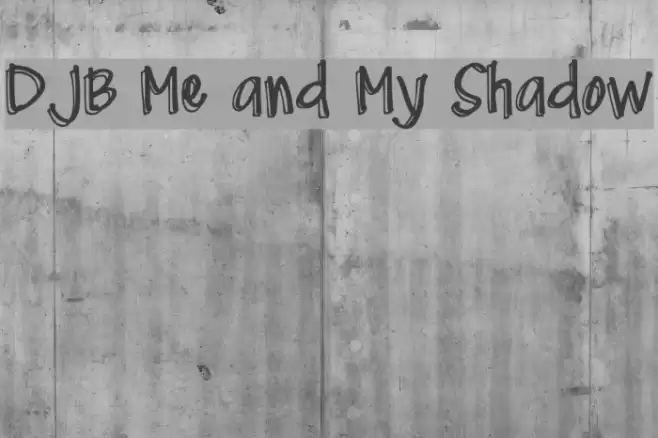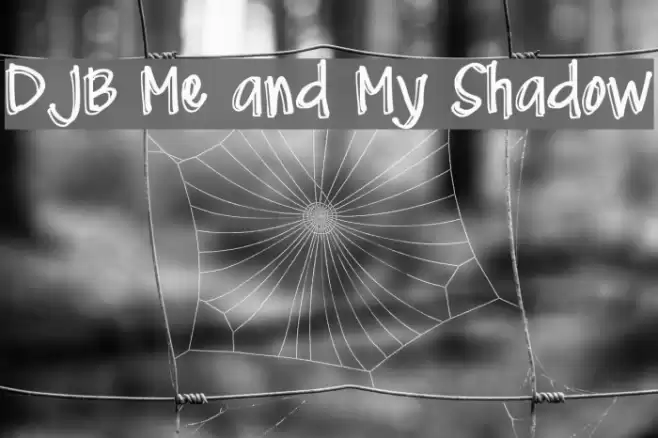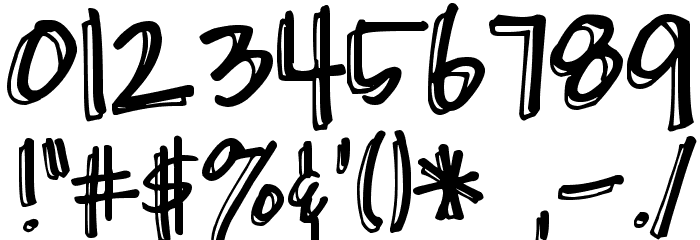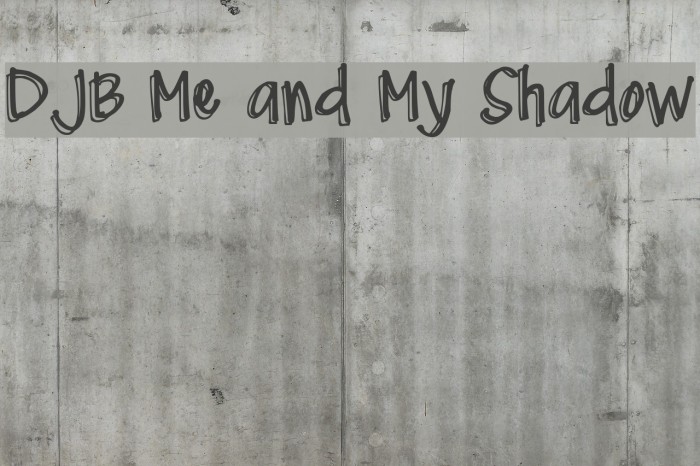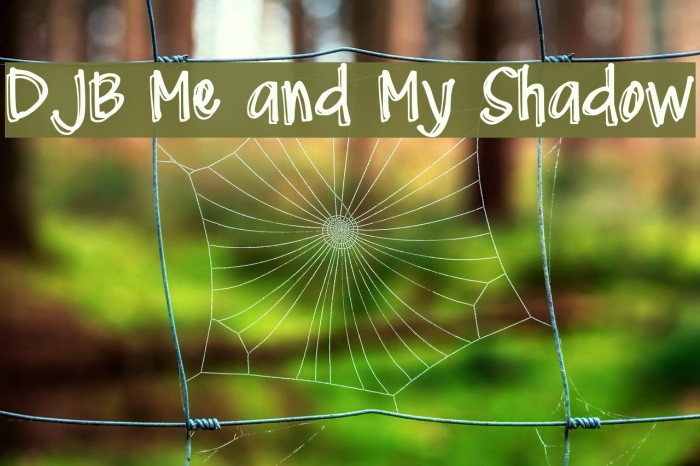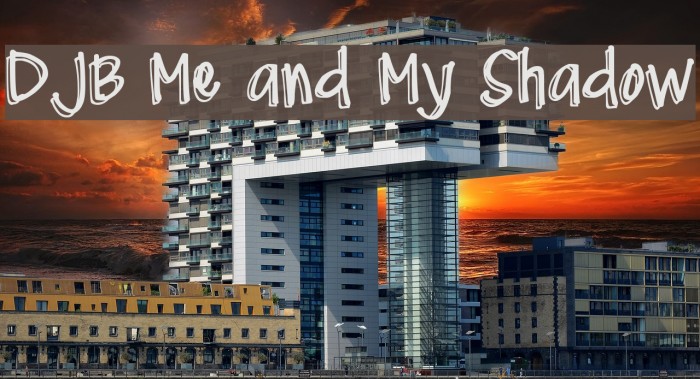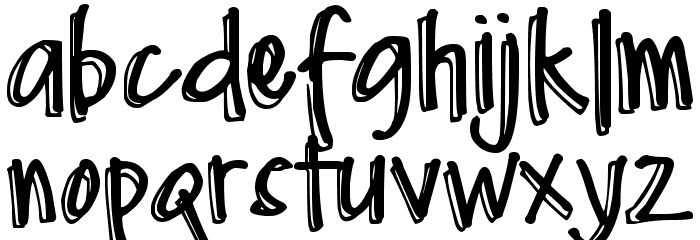
DJB Me and My Shadow Font
DJB Me and My Shadow Description
This playful and energetic font features a handwritten style that mimics the look of casual, freeform writing. The letters are bold and slightly irregular, giving them a lively and informal appearance. Each character is outlined with a shadow effect, adding depth and a three-dimensional feel. The uppercase and lowercase letters maintain a consistent style, with rounded edges and a slightly tilted orientation, enhancing the whimsical nature of the font. Numbers and special characters are included, matching the overall aesthetic with their bold and shadowed design. This font is perfect for projects that require a personal touch or a fun, approachable vibe.
A bold, shadowed handwritten font with a playful and informal style from Uncategorized fonts.
- Proposed Projects: Ideal for children's books, playful branding, greeting cards, and casual invitations.
- Overall Style: Playful
- Use Case: Headlines, Logos, Informal Text